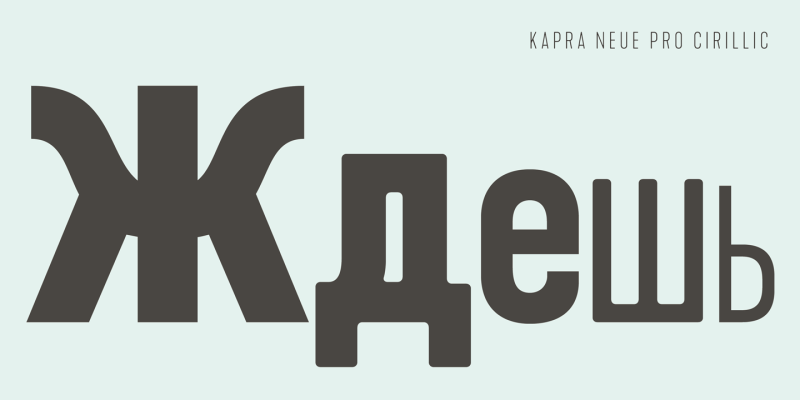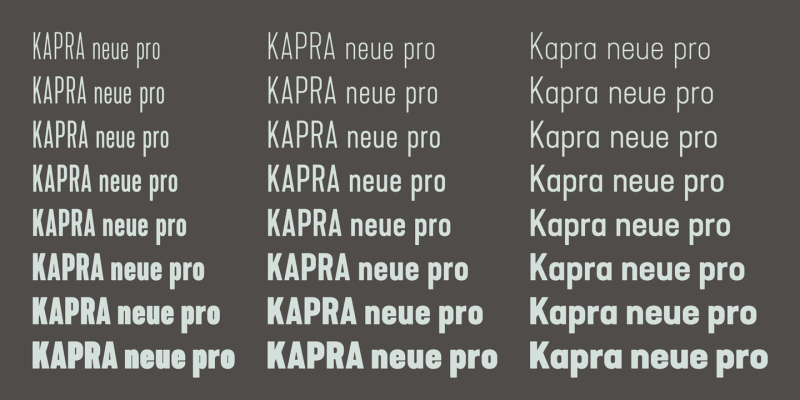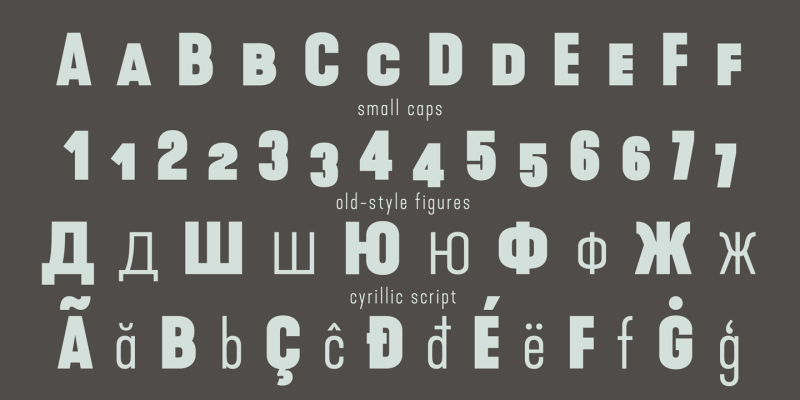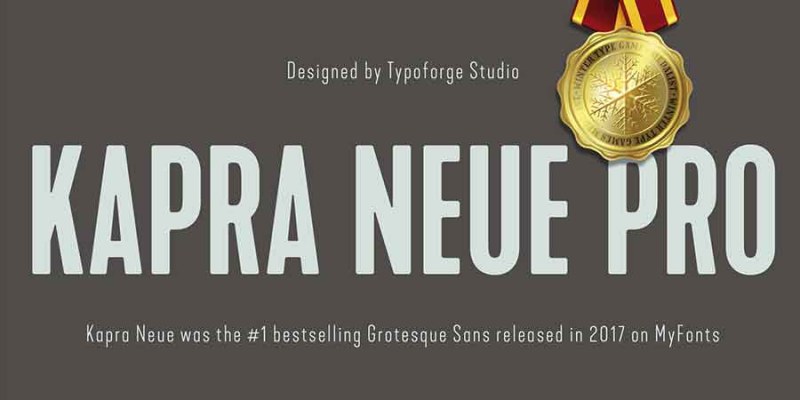
Kapra Neue Pro Font Family
Kapra Neue Pro is a younger sister of Kapra Neue – he was the #1 bestselling Grotesque Sans released in 2017 on MyFonts and grandson of Kapra. Now you really have a lot of options to choose! New family is full of everything – 96 weights contain a wide range of instances, from Condensed to Expanded, everything with rounded corners or with sharp ones. Now, font has also: small caps, cyrillic script, and old-style figures. Kapra Neue Pro is inspired by a “You And Me Monthly” magazine, published by National Magazines Publisher RSW “Prasa” in Poland, from May 1960 till December 1973.
Where Kapra Neue Pro Font Family works best
Kapra Neue Pro Font Family stays legible at small sizes, which makes it a strong choice for navigation, buttons and dashboards in web design and app interfaces.
Clean sans serifs like Kapra Neue Pro Font Family are the default language of SaaS, fintech and product branding.
What is Kapra Neue Pro Font Family good for?
Kapra Neue Pro Font Family is a Sans Serif Fonts typeface tagged Condensed, Editorial, Professional, Rounded. It works well for headlines, logos, posters, social media graphics and branding projects that need a distinctive sans serif fonts look.